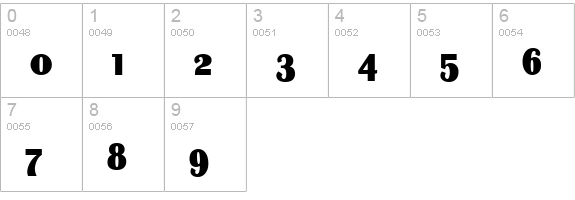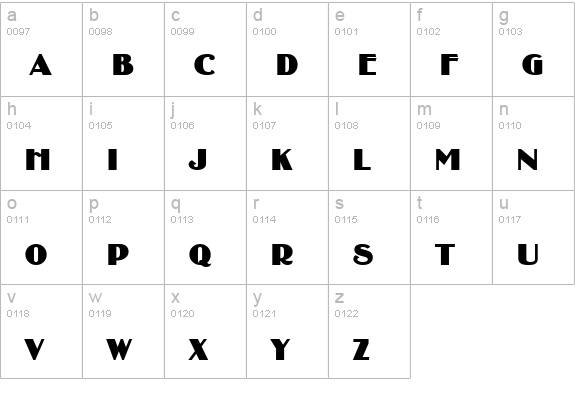
BinnerSCD font is a beautifully crafted typeface that exudes elegance and sophistication. With its sleek lines and modern design, this font is perfect for a wide range of design projects, from branding to editorial layouts. The clean and minimalist aesthetic of BinnerSCD font makes it versatile and easy to read, while still maintaining a sense of style and uniqueness. What sets BinnerSCD font apart is that it is not only visually appealing, but also completely free to download. Yes, you read that right - you can access this stunning font at no cost! Simply head over to FontsMarket.com to get your hands on this gem and elevate your designs with BinnerSCD's timeless appeal. Whether you're working on a professional project or simply want to add a touch of sophistication to your personal creations, BinnerSCD font is the perfect choice for all your typographic needs.